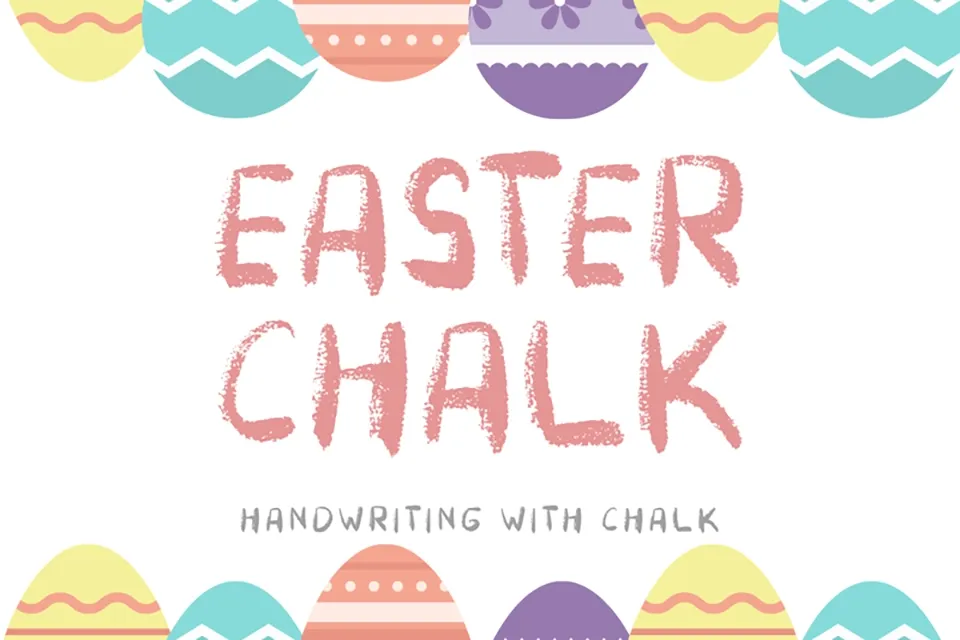
Easter Chalk Font
Easter Chalk Font is a charming and beautiful chalk font evokes a sense of whimsy and cuteness. Its hand-drawn style captures the essence of a bygone era, while its beautiful flourishes and imperfections add a touch of warmth and character. Ideal for projects that require a cozy and inviting feel, such as invitations or menus.